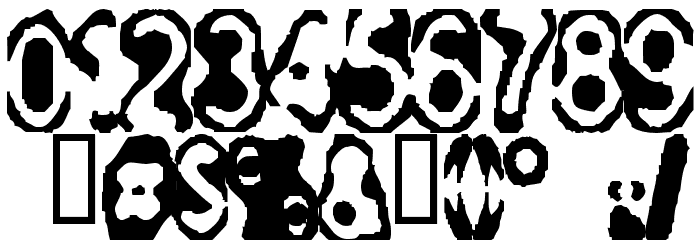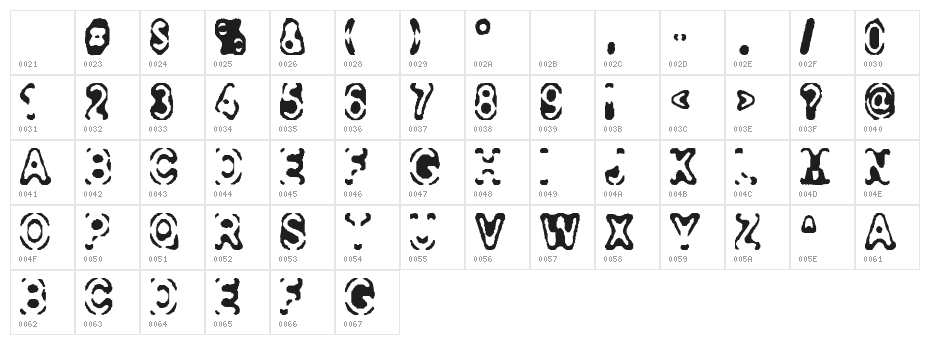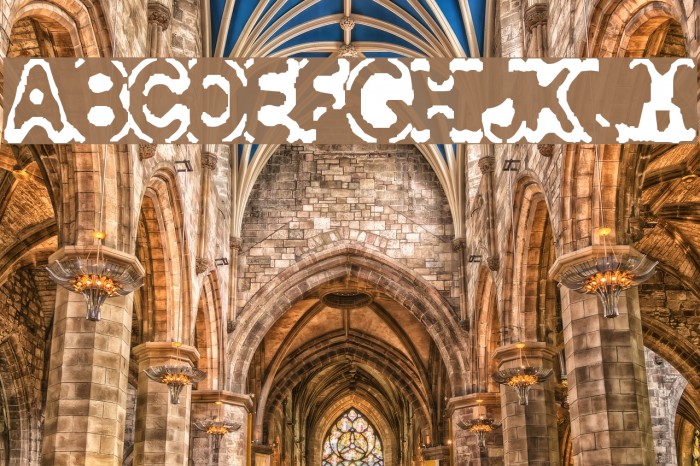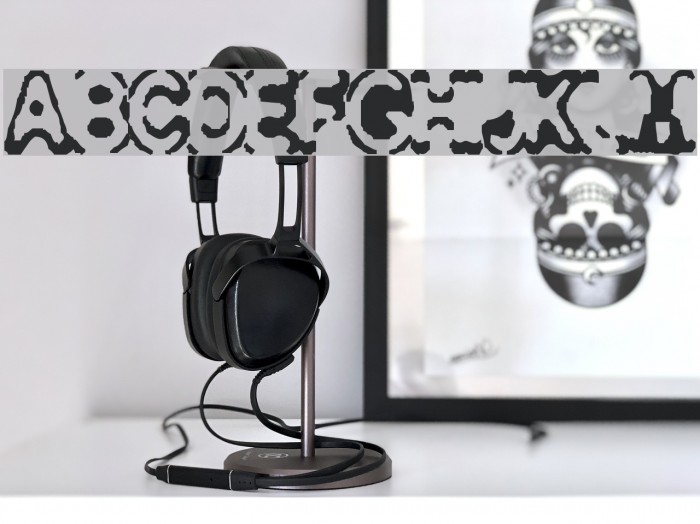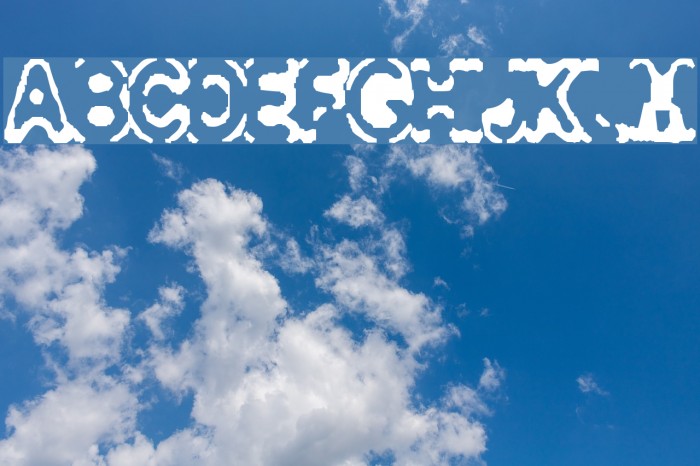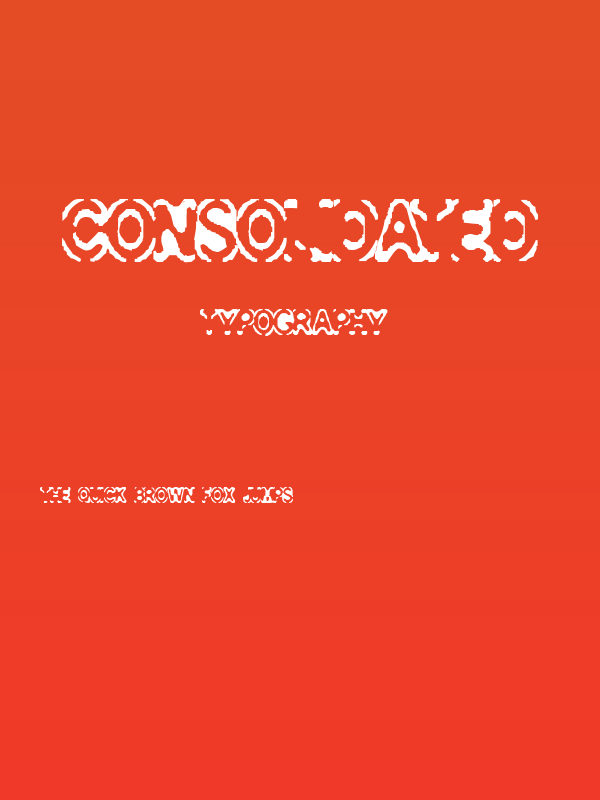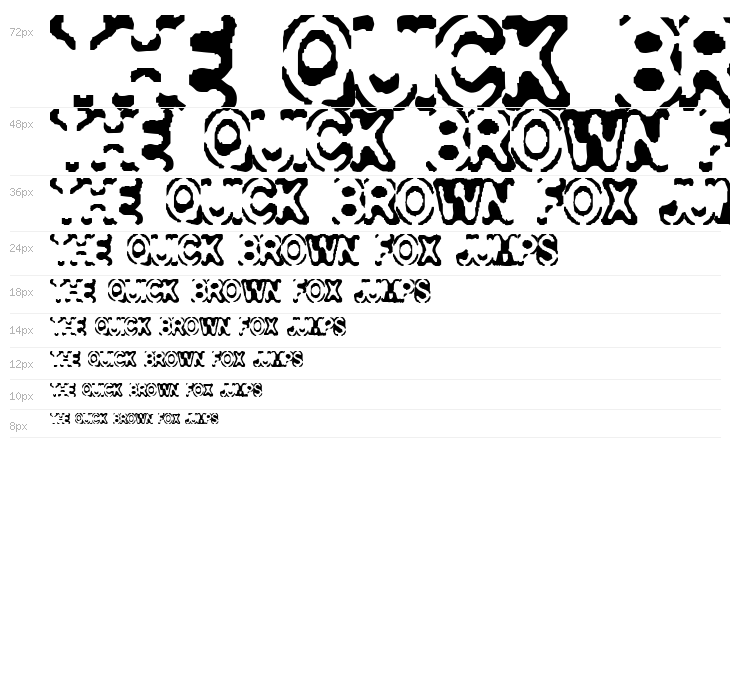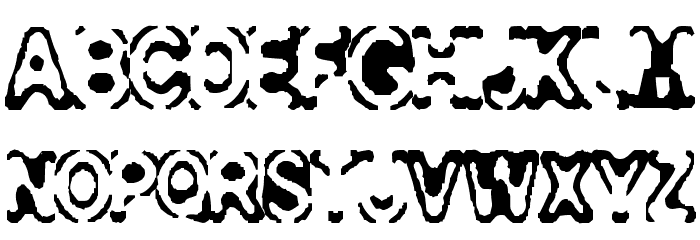
Consolidated Font
Consolidated Description
This font features a highly decorative and abstract style, characterized by its bold and irregular shapes. The letters are designed with a unique pattern that resembles a stencil or cut-out effect, creating a sense of movement and dynamism. The font's design is both eye-catching and unconventional, making it suitable for creative and artistic projects. The characters are bold and have a substantial presence, with a playful yet edgy aesthetic. The overall appearance is modern and experimental, with a focus on visual impact and artistic expression.